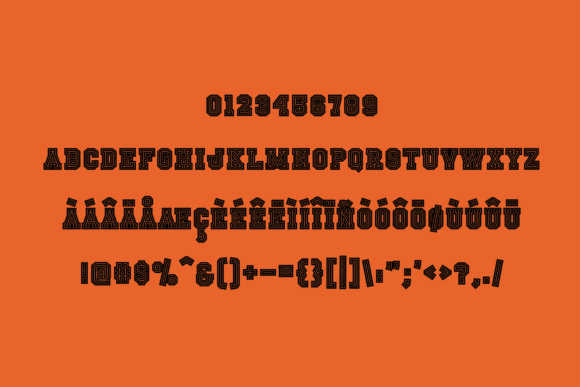
Introducing Champs Font: The Ultimate Typeface for Sporty Designs
Are you a designer or crafter looking for a font that can bring your sport-inspired creations to life? Look no further than Champs Font, a bold, outlined serif font that’s perfect for a wide range of projects. With its strong letterforms and striking design, Champs Font delivers a balance of professionalism and athletic style that’s sure to make your designs stand out.
The Perfect Font for Sporty Designs
Champs Font is specifically designed to meet the needs of designers and crafters who want to create sporty, high-energy designs that capture the spirit of competition and athleticism. Whether you’re working on a logo, poster, or social media graphic, Champs Font is the perfect choice. Its bold, outlined letterforms are easy to read and instantly convey a sense of confidence and energy.
Key Features of Champs Font
- Bold and Outlined Design: Champs Font features a bold, outlined design that’s perfect for creating eye-catching headings and titles.
- Serif Font: The serif font style adds a touch of professionalism and sophistication to your designs.
- Athletic Style: The font’s athletic style makes it perfect for sport-inspired designs, from logos and posters to social media graphics and more.
- High-Quality and Impactful: Champs Font is a high-quality, impactful typeface that’s designed to make your designs stand out.
Why Choose Champs Font?
So why choose Champs Font for your sporty designs? Here are just a few reasons:
- Versatility: Champs Font is versatile enough to be used for a wide range of projects, from logos and posters to social media graphics and more.
- Professionalism: The font’s bold, outlined design and serif font style give your designs a professional, high-end look.
- Athletic Style: The font’s athletic style makes it perfect for sport-inspired designs that require a high-energy, dynamic look.
- Easy to Read: The font’s bold, outlined letterforms are easy to read, even at small sizes.
How to Use Champs Font
Using Champs Font is easy. Here are a few tips to get you started:
- Pair with Other Fonts: Pair Champs Font with other fonts to create a unique, dynamic look.
- Use for Headings and Titles: Use Champs Font for headings and titles to add a bold, eye-catching touch to your designs.
In conclusion, Champs Font is the perfect typeface for designers and crafters who want to create sporty, high-energy designs that capture the spirit of competition and athleticism. With its bold, outlined serif font style and athletic style, Champs Font delivers a balance of professionalism and athletic style that’s sure to make your designs stand out. So why wait? Download Champs Font today and start bringing your sport-inspired creations to life!